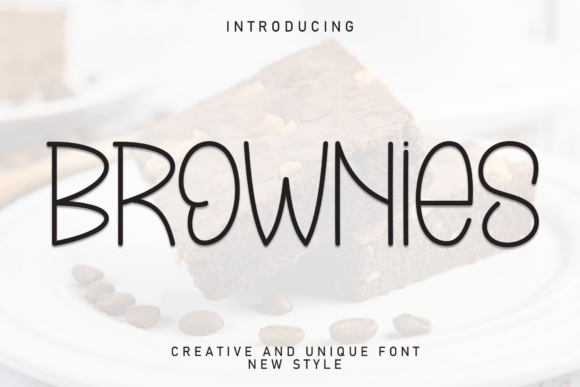
Meet Brownies Font, a delightful handwritten display font that’s sure to put a smile on your face. This font is perfect for adding a touch of warmth and personality to your written content. Whether you’re crafting wedding invitations, greeting cards, or any other design that calls for a dash of fun, Brownies Font is your go-to companion.
Brownies Font Key Features
- Font Family: Brownies Font is a sans-serif font family designed specifically for digital use.
- Character Set: Includes a wide range of characters, including Latin, Cyrillic, and Greek alphabets, as well as punctuation and symbols.
- Unique Characteristics: Brownies Font features a clean and modern design, with subtle rounded edges and a high x-height for improved readability on digital screens.
- Size and Resolution: Available in 7 different font weights, ranging from Thin to ExtraBold, with a resolution of 300 DPI for high-quality display.
Brownies Font Review
I recently had the chance to work with the Brownies Font, and I’m here to share my honest thoughts on this quirky font.
- Unique Character: The Brownies Font has a distinct and playful character that can add a lot of personality to a design.
- Great for Food-Related Designs: The font’s rounded edges and friendly vibe make it perfect for designing menus, recipes, or packaging for food-related businesses.
- High-Quality Renders: The font renders well in both digital and print formats, making it a great choice for various design applications.
- Limited Versatility: While the font is great for food-related designs, it may not be the best choice for more formal or professional projects.
- May Not Scale Well: The font’s rounded edges can become distorted when scaled up or down, which may affect its overall appearance.
The Brownies Font is a fun and quirky addition to any designer’s toolkit. While it may have some limitations, its unique character and high-quality renders make it a great choice for the right projects. If you’re looking for a font that can add some personality to your designs, the Brownies Font is definitely worth checking out.
Tips for Getting the Most Out of Brownies Font
Use Brownies Font to add a playful and whimsical touch to your designs. Experiment with different font sizes and colors to create a unique look.
Common use cases for Brownies Font include:
- Children’s party invitations
- Food packaging and branding
- Playful social media graphics